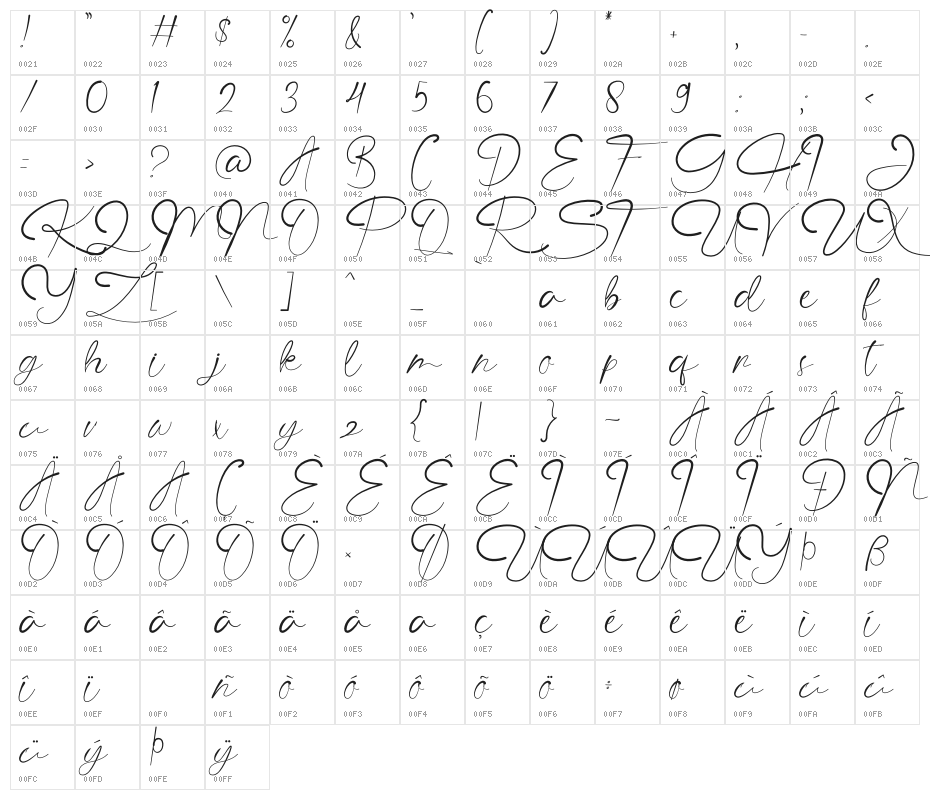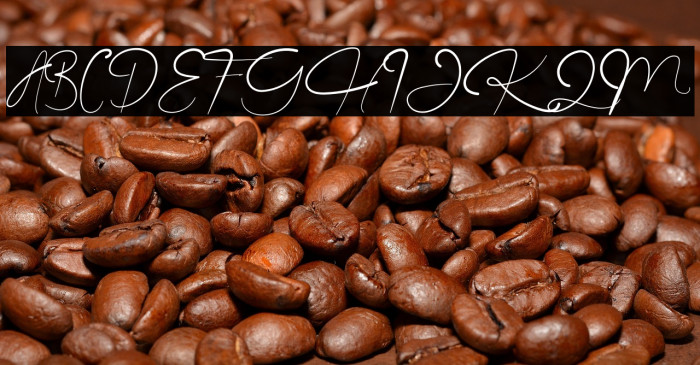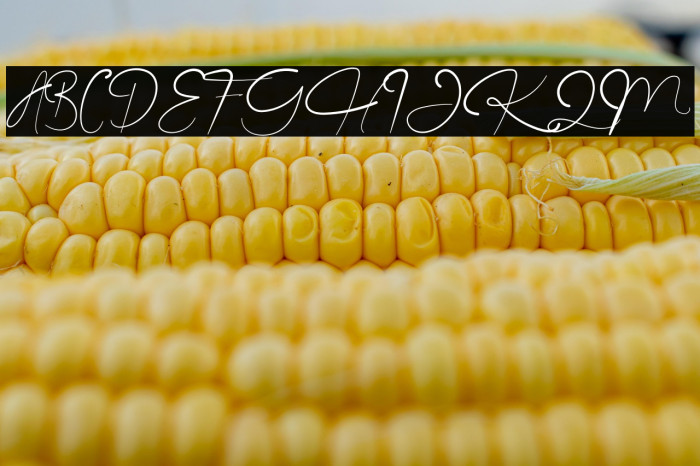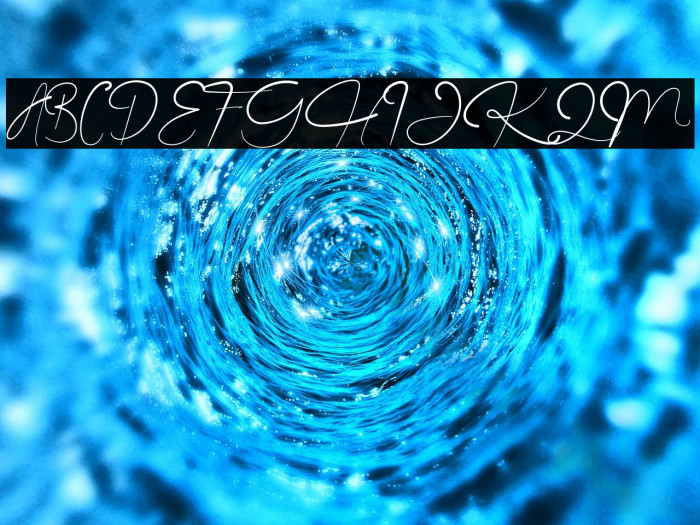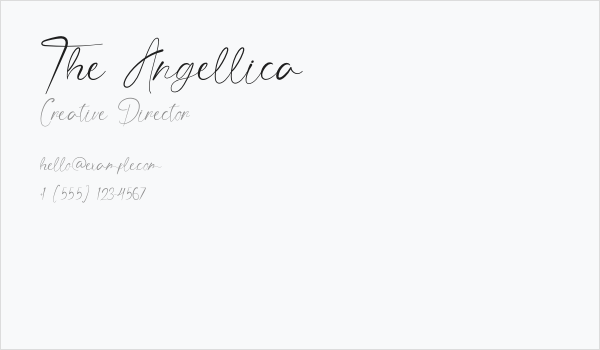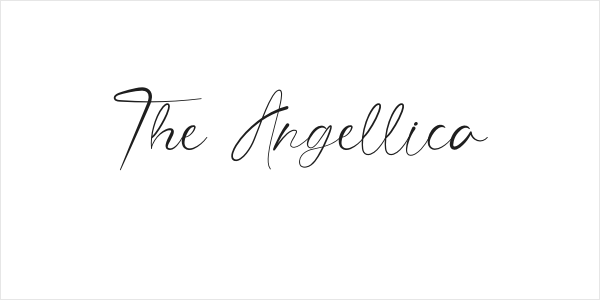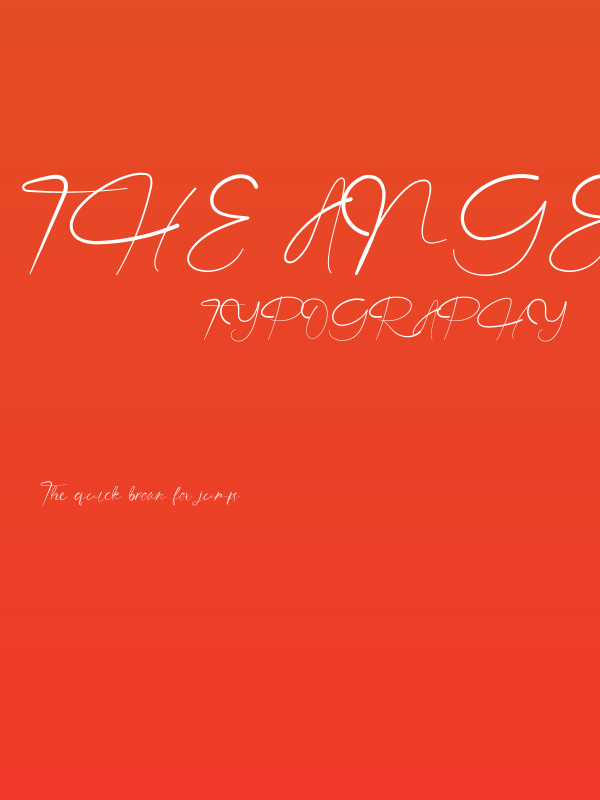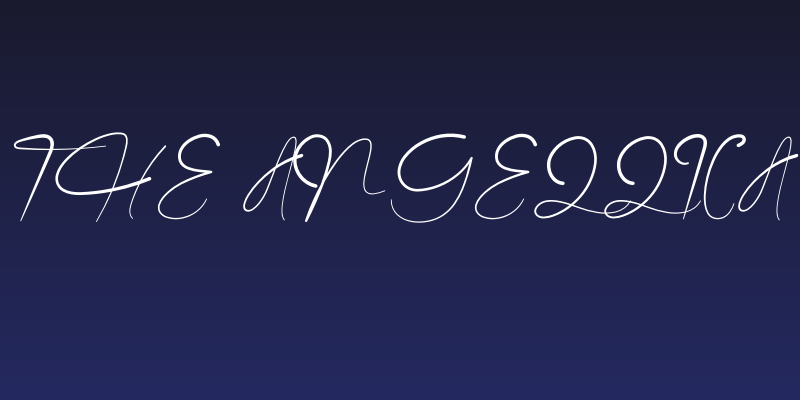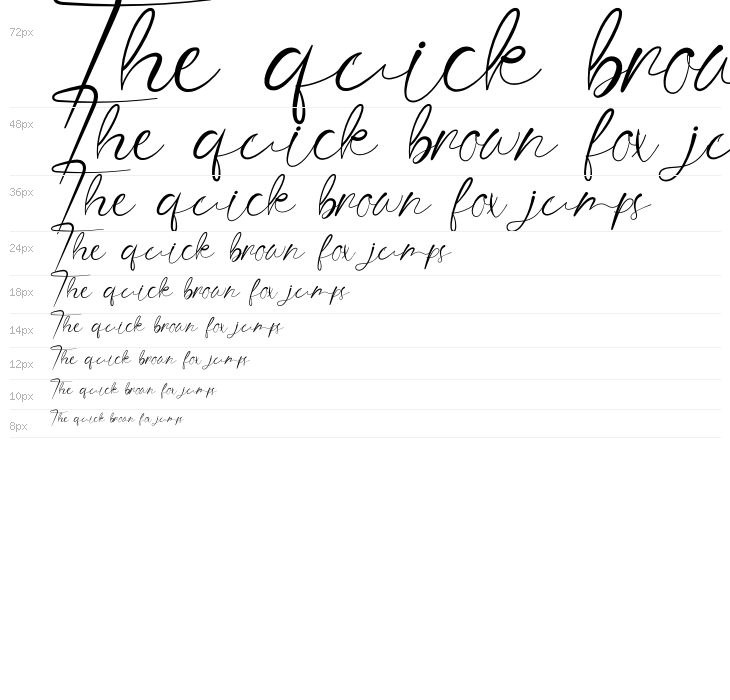
The Angellica Font
The Angellica Description
This font exudes elegance and sophistication with its flowing, cursive script style. The letters are connected, creating a seamless and fluid appearance that is both graceful and stylish. The uppercase letters are slightly more elaborate, with sweeping curves and loops that add a touch of flair. The lowercase letters maintain a consistent flow, enhancing readability while retaining the font's decorative nature. The numerals are designed to match the script style, with a slight slant and rounded edges. Special characters are included, maintaining the same elegant and cohesive design. This font is perfect for projects that require a touch of elegance and personal flair.
| Proposed Projects | Ideal for wedding invitations, greeting cards, branding, and elegant logo designs. |